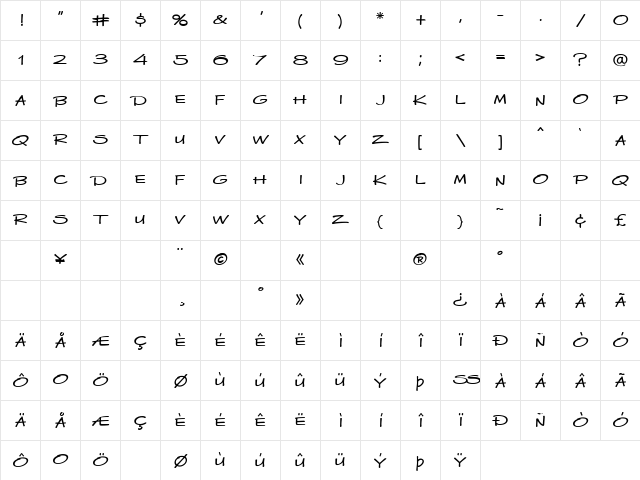
LHF Basher REG Regular
Design Context for LHF Basher REG
LHF Basher REG is a composed and adaptable typeface that performs quietly and consistently across a wide range of design contexts.
Pro Tip: Use LHF Basher REG in both headline and body roles to test its range before committing to a single application.